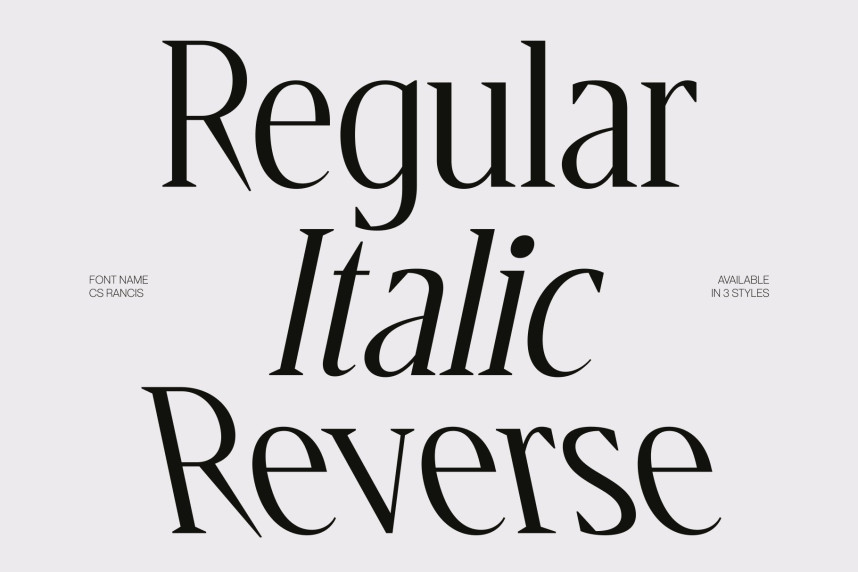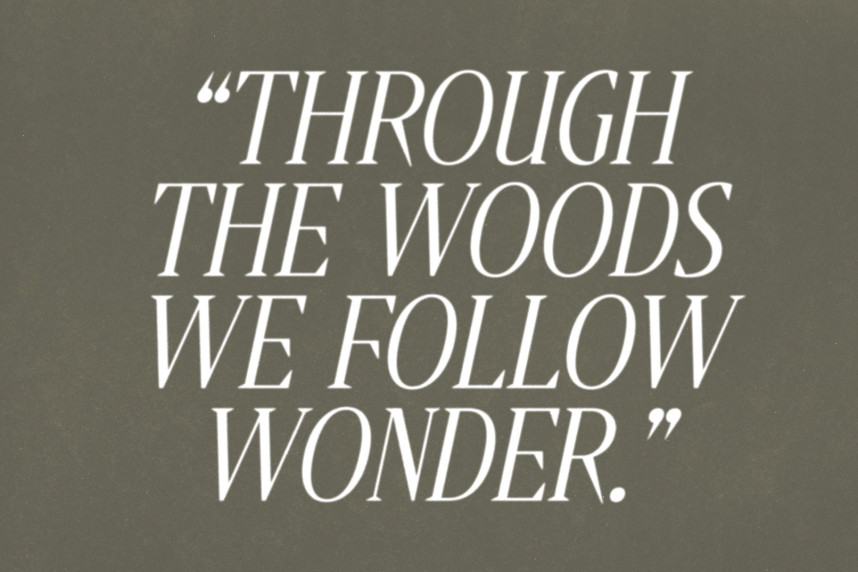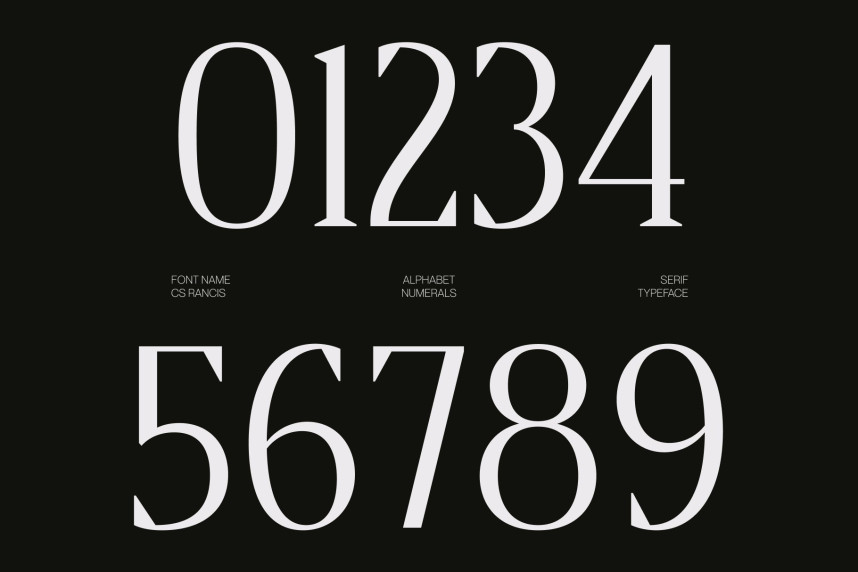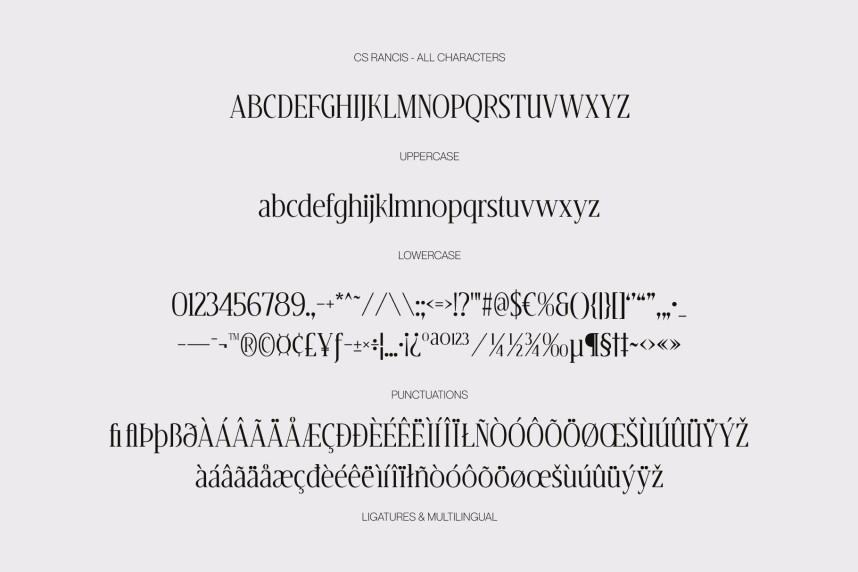
CS Rancis Font
CS Rancis Font – Modern High-Contrast Display Serif: Where Editorial Grace Meets Timeless Luxury
Tall Proportions with Graceful Wedge Serifs
This is a modern high-contrast display serif designed to express sophistication through tall, elegant proportions and refined wedge serifs. Its graceful letterforms and dramatic contrast between thick and thin strokes create a striking visual rhythm that feels both delicate and confident. Every character is carefully crafted to deliver a premium, polished appearance.